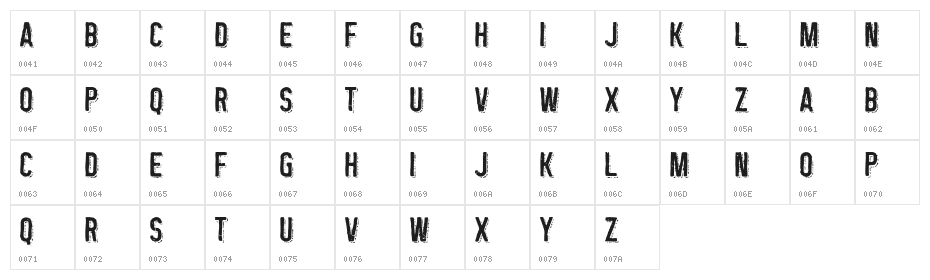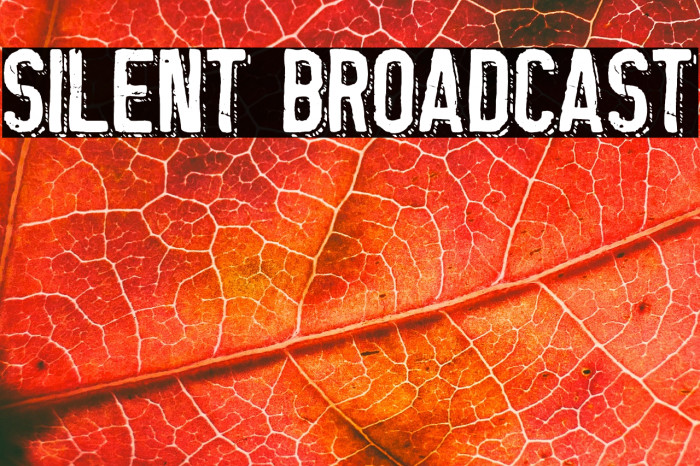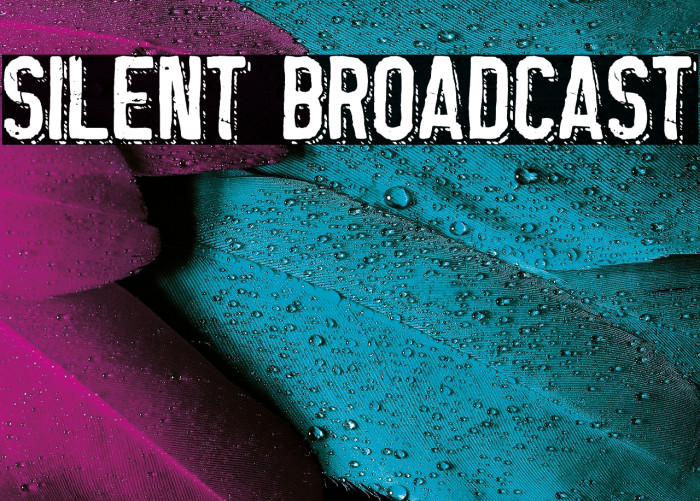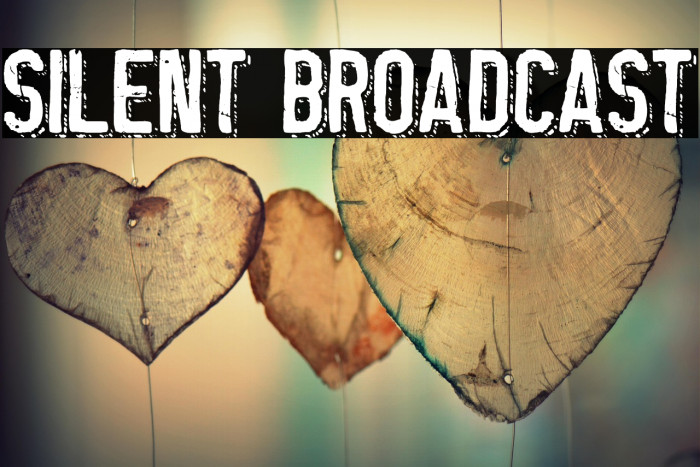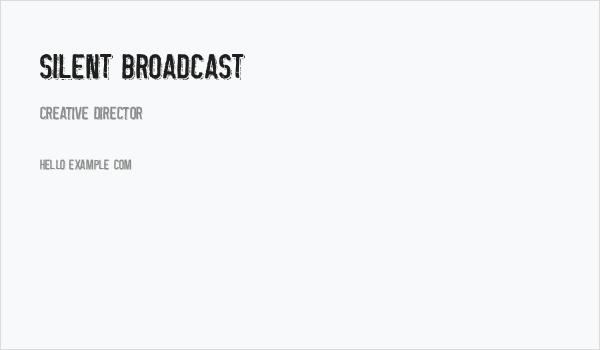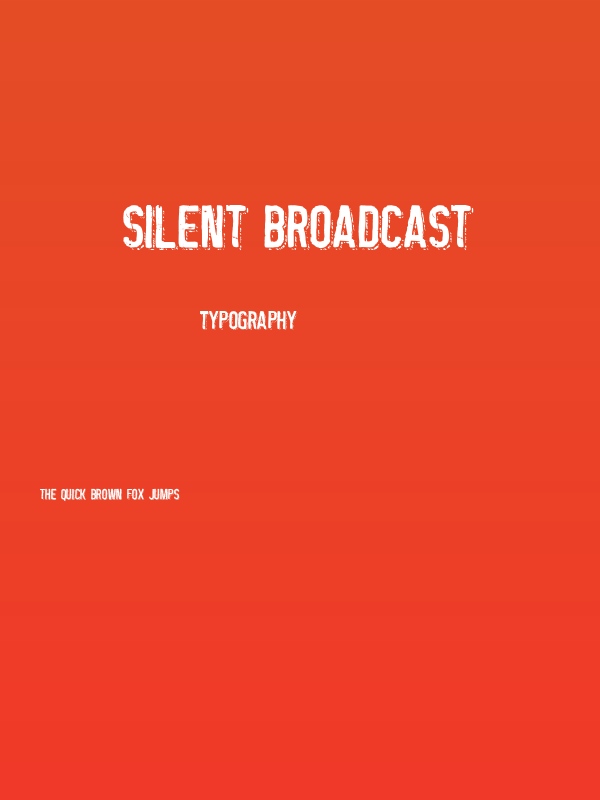
Silent Broadcast Font
Silent Broadcast Description
This font features a bold, distressed style with a rough texture that gives it a vintage, worn appearance. The uppercase letters are uniform in height and width, creating a strong and impactful presence. The distressed effect adds character and a sense of history, making it ideal for projects that require a rustic or retro aesthetic. The font maintains consistent spacing between characters, ensuring readability despite its decorative elements. Its bold weight and high contrast in stroke thickness enhance its visibility, making it suitable for attention-grabbing headlines or titles.
Overall StyleVintage
Proposed ProjectsIdeal for vintage posters, retro-themed branding, rustic signage, and attention-grabbing headlines.